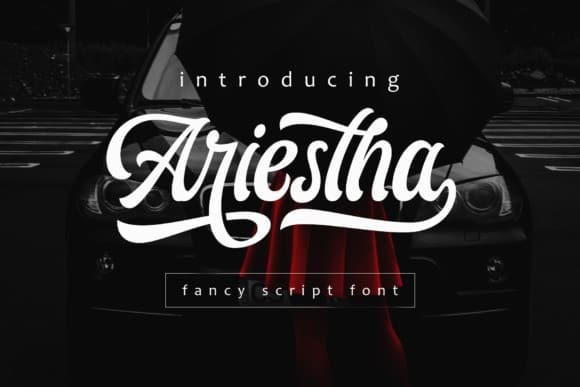
Ariestha Script Font is of high quality and multipurpose typeface. This bold typeface has a fun way to create attractive eye-catching content. This font is designed and shared by Arterfak Project. It’s a one-of-a-kind script with a beautiful feel. Get inspired by its cool vibe, and turn any design idea into a standout!
Suitable for use on the project such as branding, packaging, poster, headline, brochure, t-shirt, title, logotype, advertising, tag labels, product mock-up, etc.